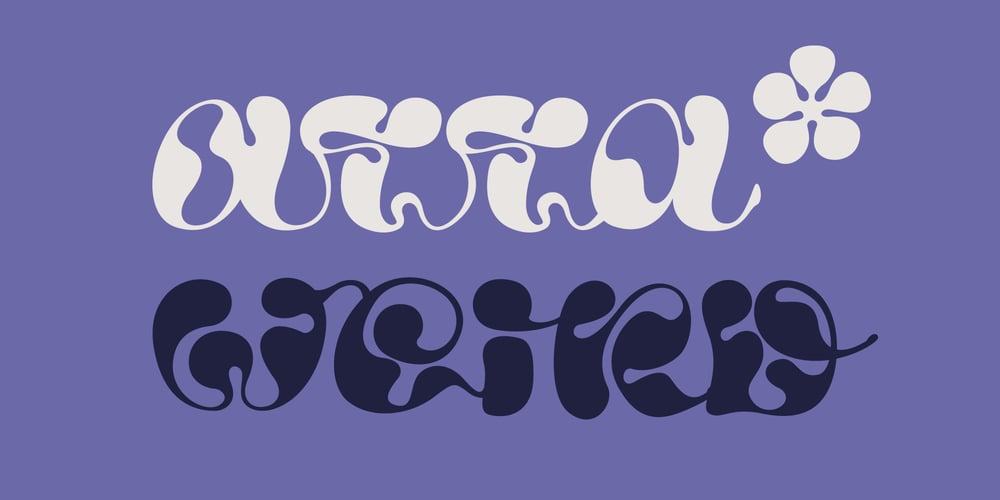
Atta Weird Font Family was designed by Roman Korolev and published by Kaer. Atta Weird contains 1 styles and family package options. Hello! Do you need a weird font for your lettering, invitations, or banners? Please try it. There are a lot of ligatures and multilingual glyphs.What you will get:* Uppercase (lowercase glyphs are same)* Multilingual support* Numbers and symbolsIf you have any questions or issues, please contact me: kaer.pro@gmail.com Best, Roman.